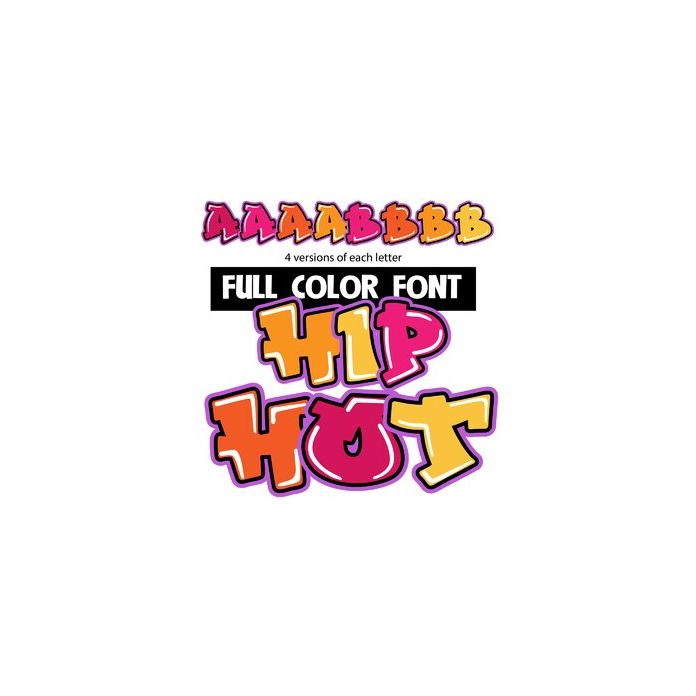
This full-color font features graffiti-style lettering in bright sunny colors. There is an alt version with additional colors of lettering you can access through your system or Silhouette's glyph map.